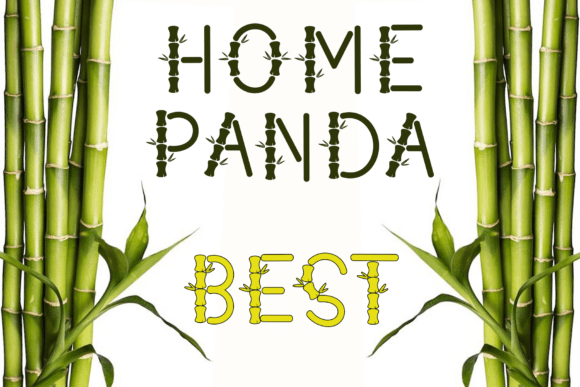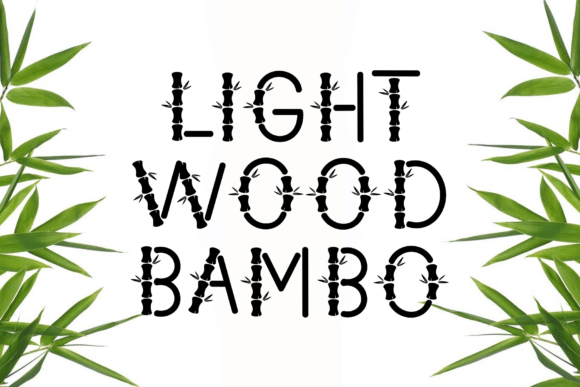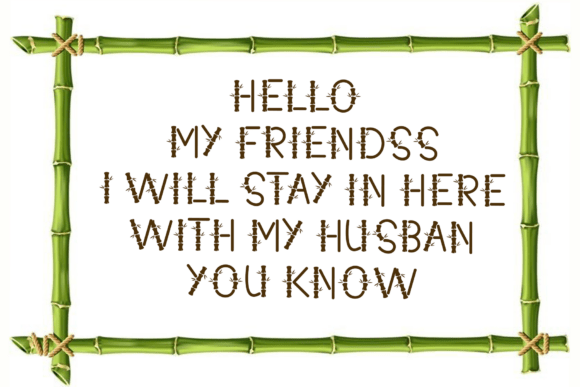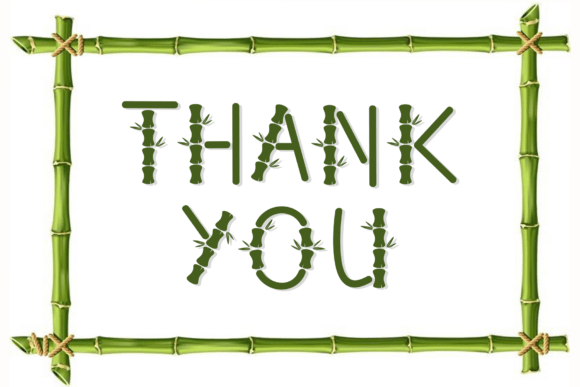
Discovering the Perfect Harmony of Nature and Design
As I sat in my backyard, surrounded by swaying bamboo stalks, I was struck by the intricate patterns and organic beauty of these versatile plants. It was then that I stumbled upon the Bamboo Font – a highly creative and thematic display font that perfectly captures the essence of nature’s elegance.
Designed to resemble the natural beauty of bamboo, this font is a masterclass in balance and harmony. Each letterform is meticulously constructed to feature distinctive segmented joints and delicate leaf accents, providing an organic and tropical aesthetic that’s both unique and captivating. Whether you’re looking to create a memorable brand identity or add a touch of the outdoors to your design, the Bamboo Font is a valuable asset for any designer.
Bamboo Font Key Features
• Font Family: Bamboo is a sans-serif font family designed for digital use, available in multiple weights and styles.
• Character Set: The font family supports a wide range of characters, including Latin, Cyrillic, and Greek alphabets, as well as various punctuation and symbol sets.
• Unique Characteristics: The font’s unique, natural feel is achieved through the use of subtle rounded edges and a carefully crafted letterform design that evokes the look of bamboo.
Bamboo Font Review
Overall, I’d say the Bamboo Font is a unique and interesting addition to any design project. ✨ The font’s organic, natural feel is reminiscent of handwritten text, which can add a touch of warmth and personality to your designs. The font’s versatility also shines through, with a range of styles and weights available to suit different design needs.
• ✨ Organic and natural feel, perfect for designs that require a personal touch
• ✨ Versatile, with a range of styles and weights to suit different design needs
• ✨ Suitable for a variety of projects, from branding and marketing to digital products and editorial content
• ⚠️ Some letters may appear slightly irregular or uneven, which can be a drawback for designs that require precision and perfection
• ⚠️ The font may not be suitable for projects that require a more formal or traditional look and feel
• ⚠️ Limited international character support, which may be a concern for designers working on projects that require multiple languages
Overall, I’d give the Bamboo Font 4 out of 5 stars. While it has its limitations, its unique charm and versatility make it a great addition to any design project. With some careful consideration of its strengths and weaknesses, the Bamboo Font can help take your designs to the next level.
The Bamboo font is ideal for:
• Asian-inspired designs
• Traditional or vintage-style designs
• Wedding invitations or stationery
For the most out of the Bamboo font, use it in combination with other Asian-inspired elements, such as cherry blossoms or kanji characters.